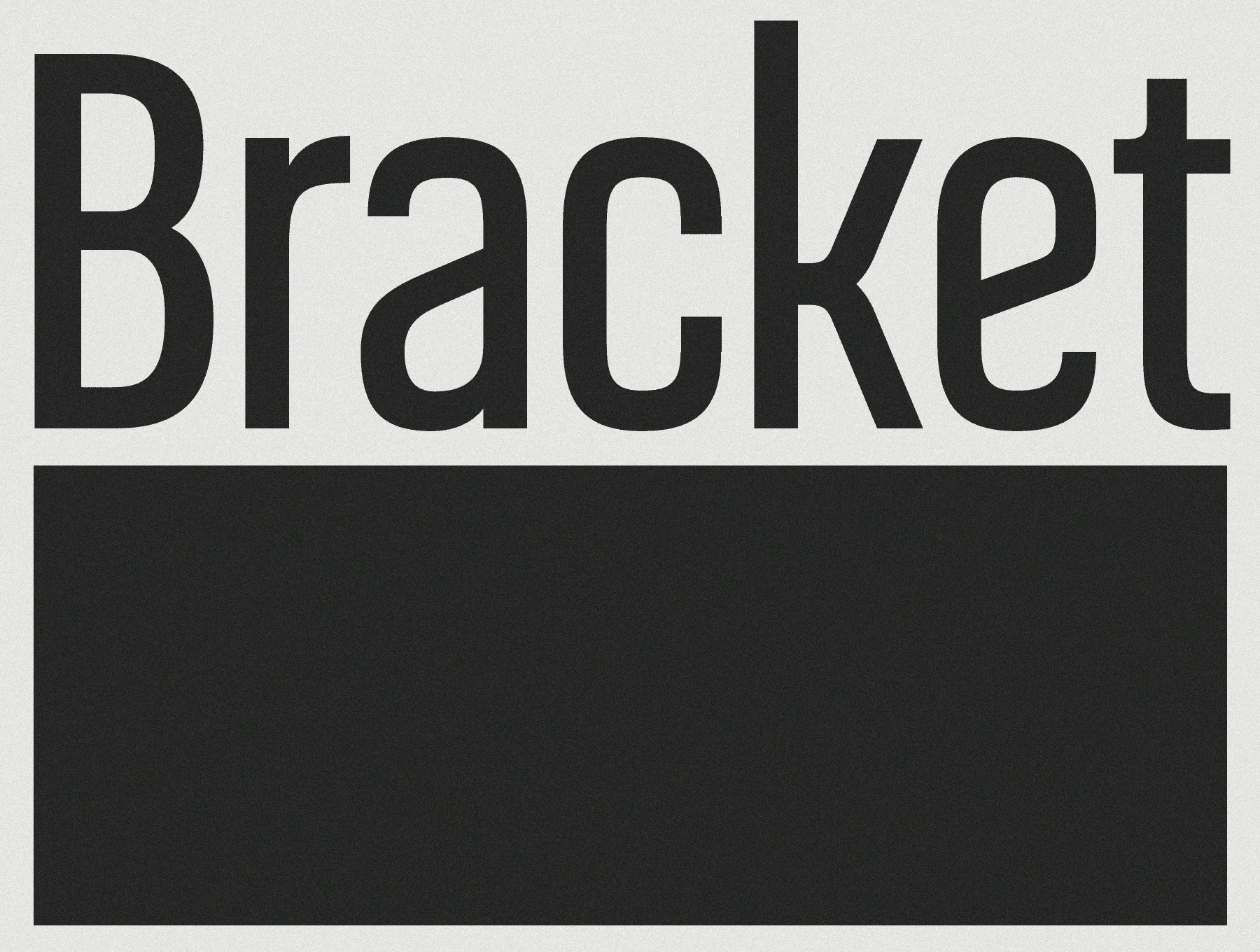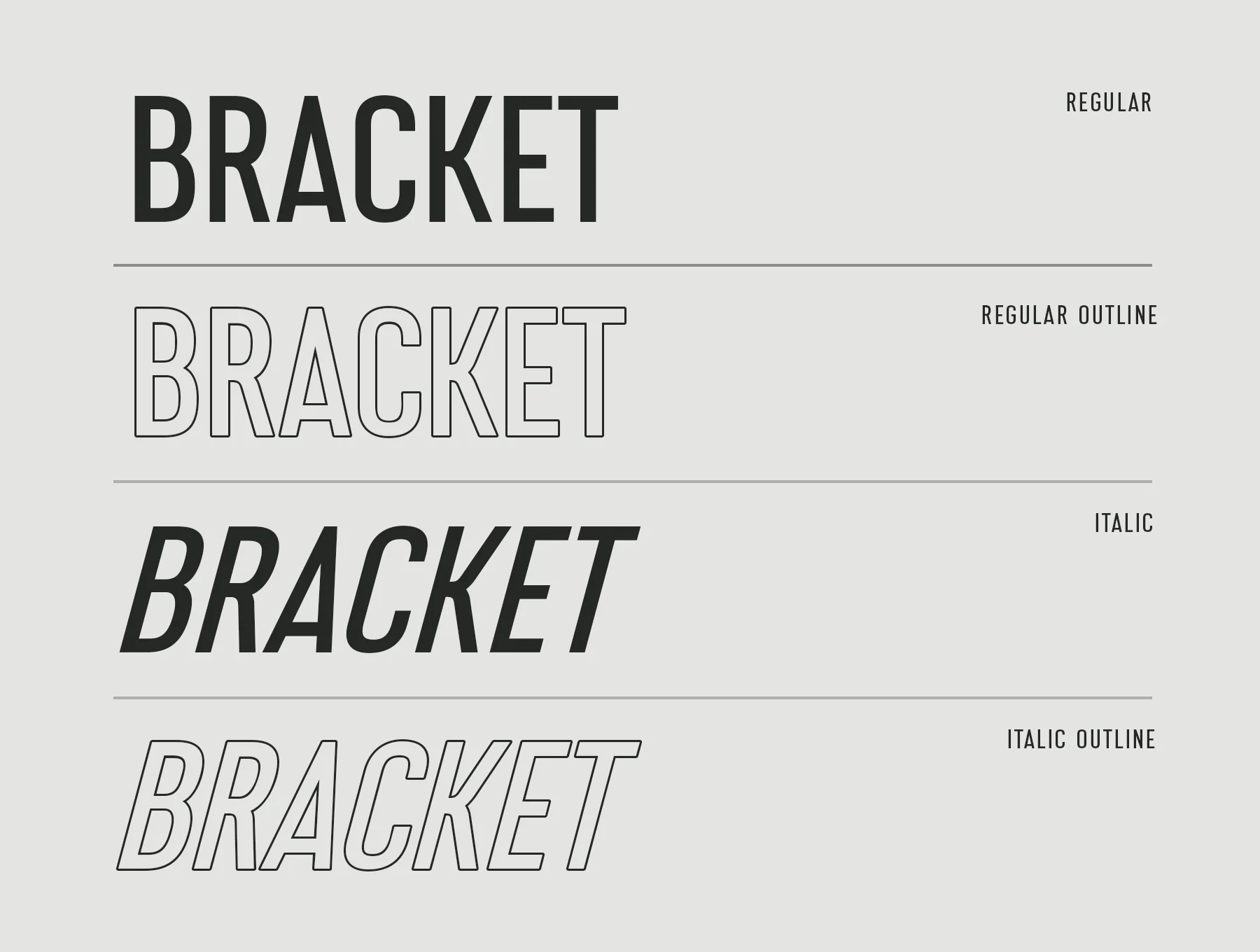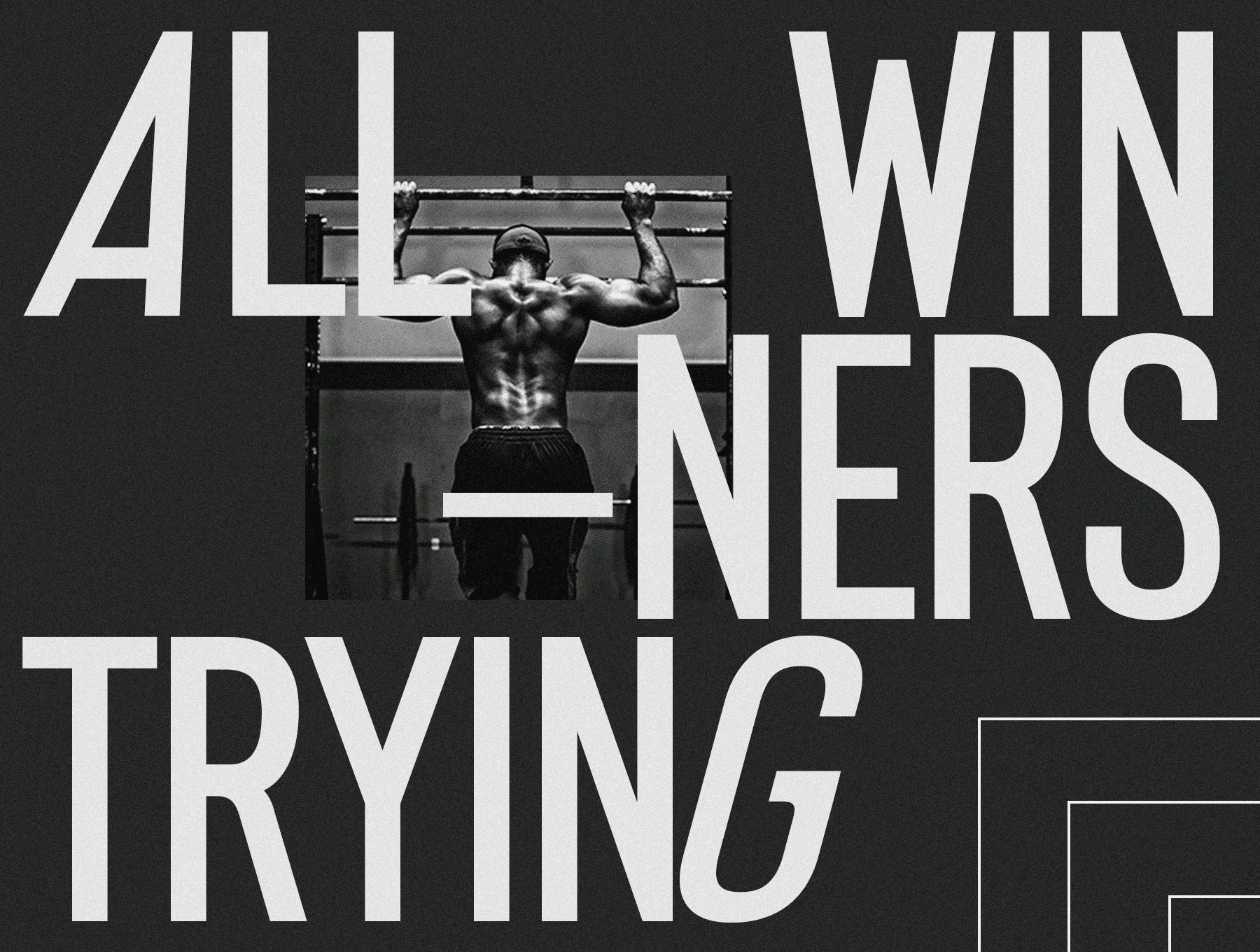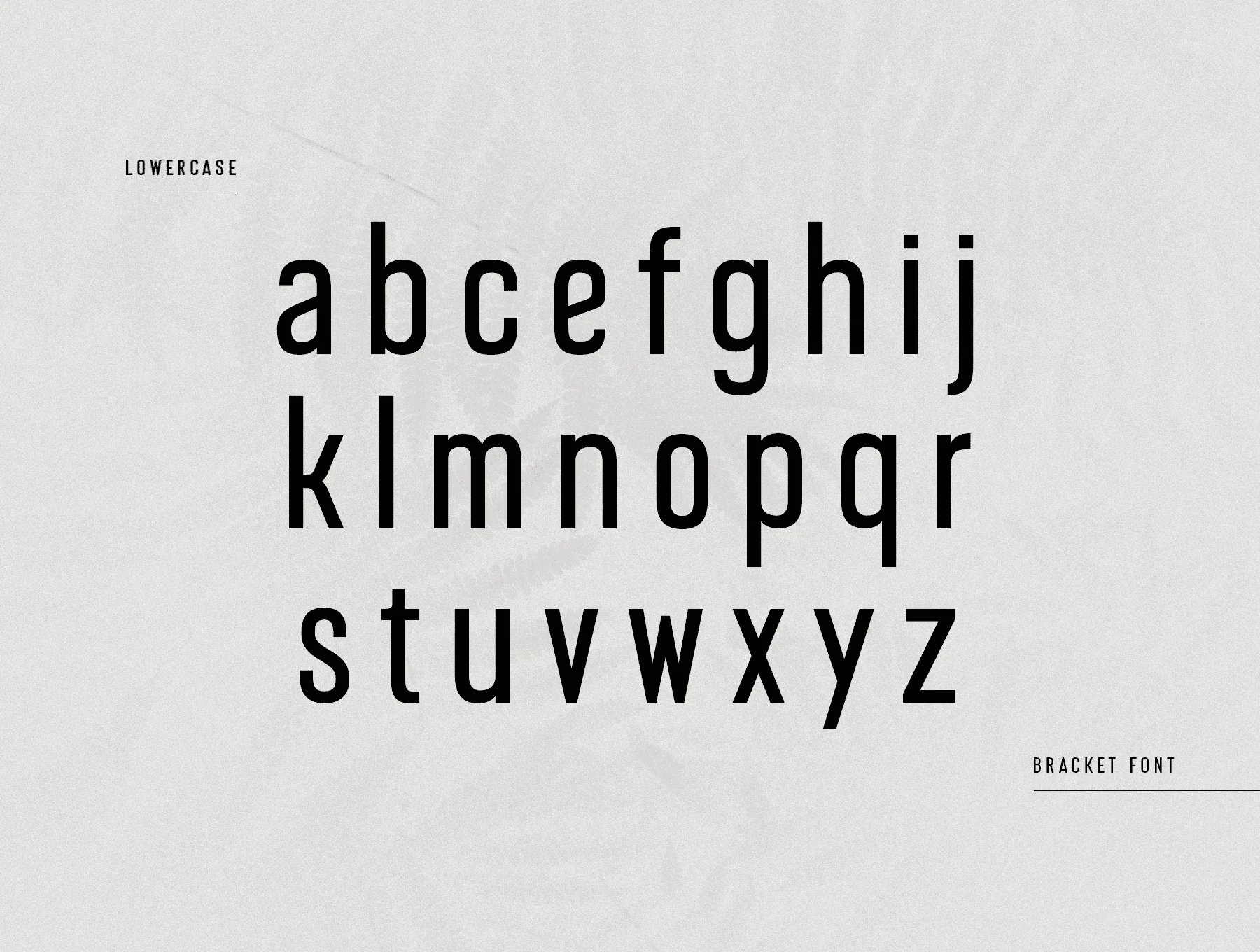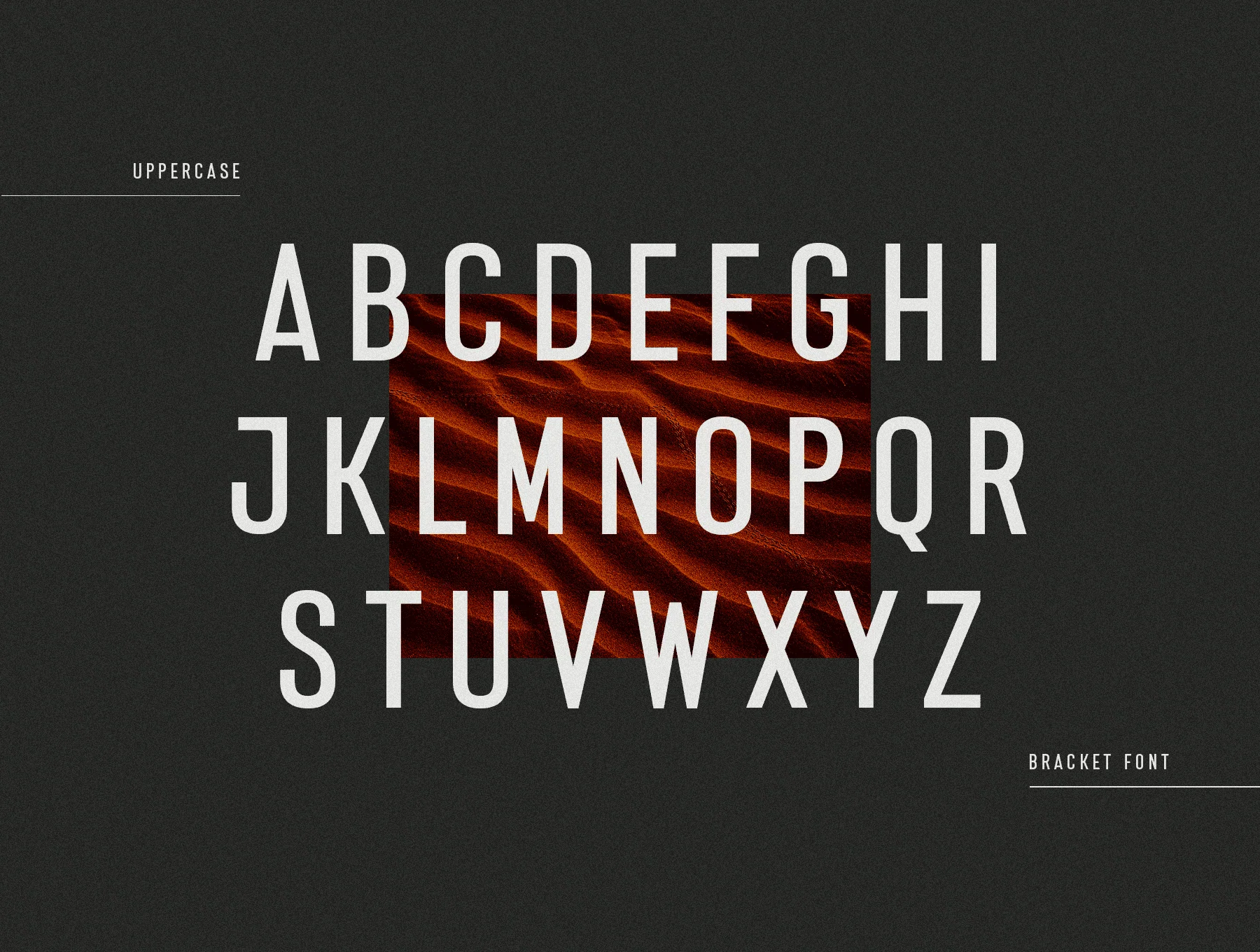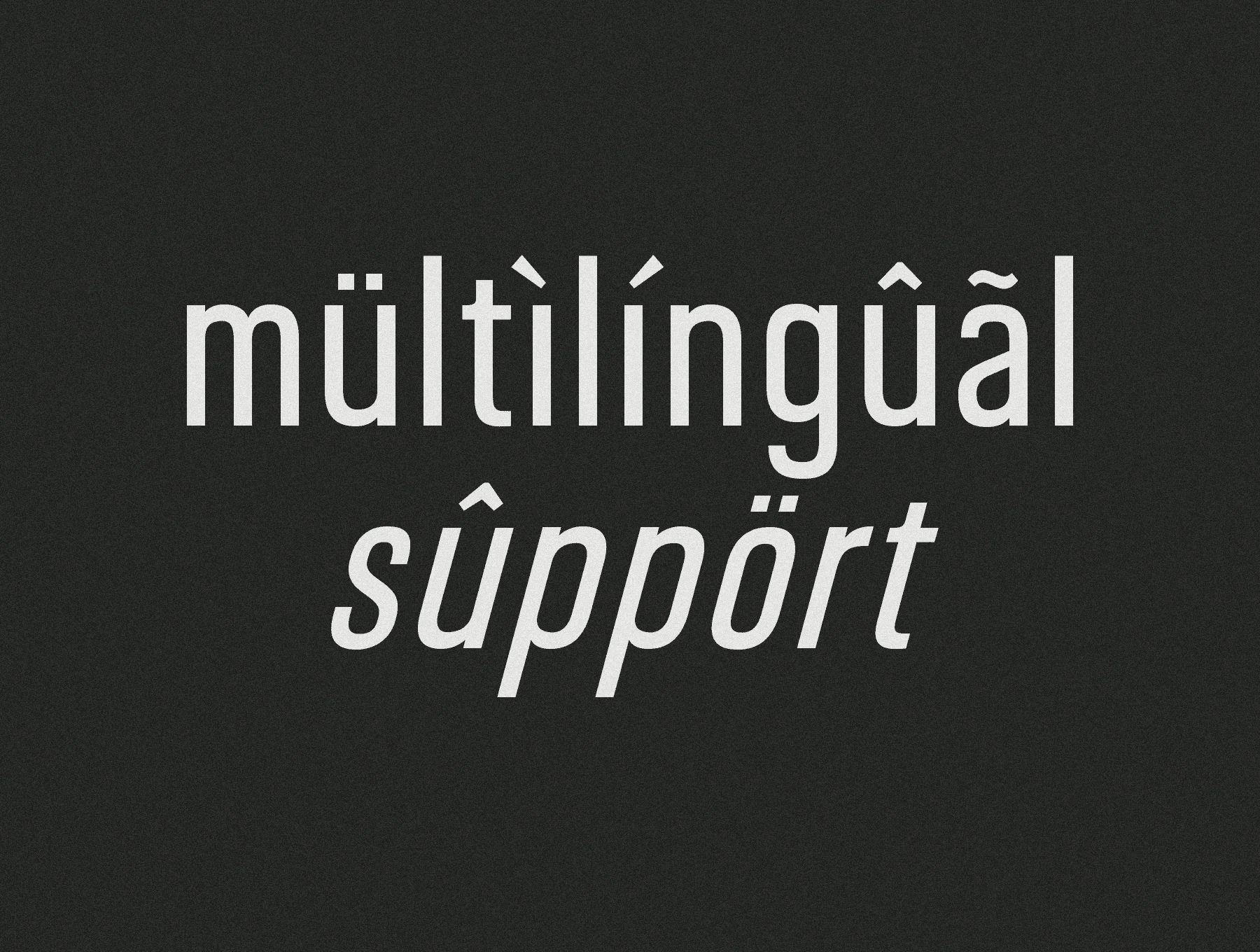
Bracket Font
Bracket – Sleek condensed sans serif for corporate branding
Numbers and punctuation marks
Capital and small letterforms
Full Bracket font set: Regular, Outline, Italic, Italic Outline
A fresh sans serif font designed for business, corporate work, proposals, and many other projects. Complete with outline and italic styles, it helps strengthen your message and presentation. Built with a clean, dynamic look, it is ideal for proposal overviews and professional designs that make your main idea stand out.